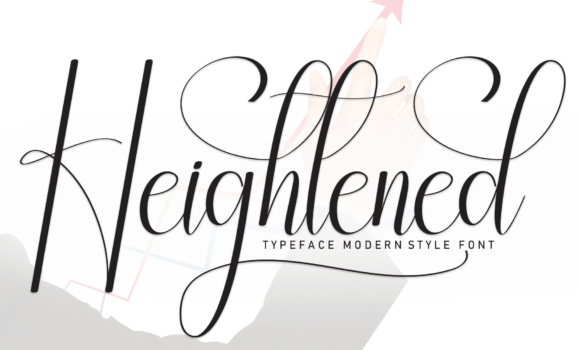
heightened
Heightened Font – Free Download Introduction to Heightened Font Heightened is a flowing handwritten font, described by an elegant touch, perfect for your favorite projects. 📸 Preview Gallery 6 images 📌 Product Name Heightened Font 👤 Author andikastudio 📂 Category